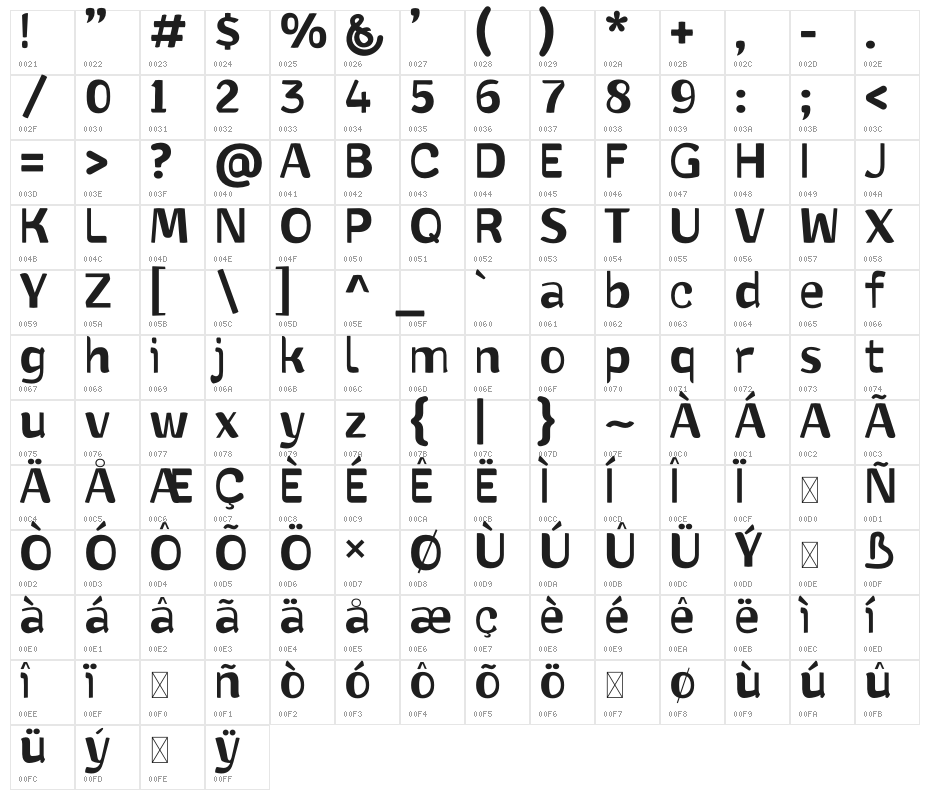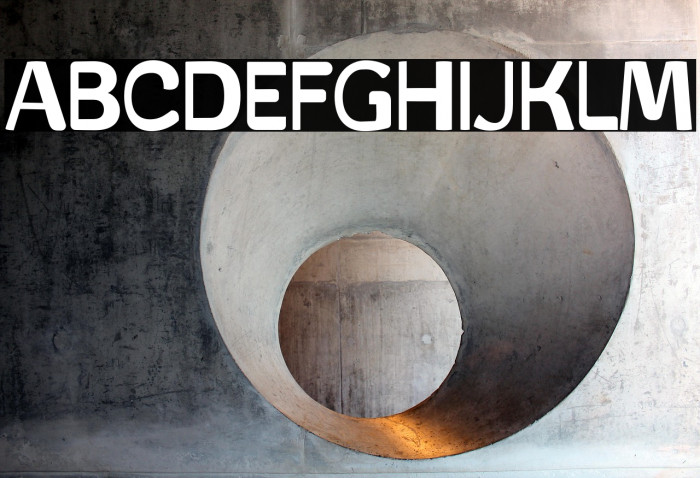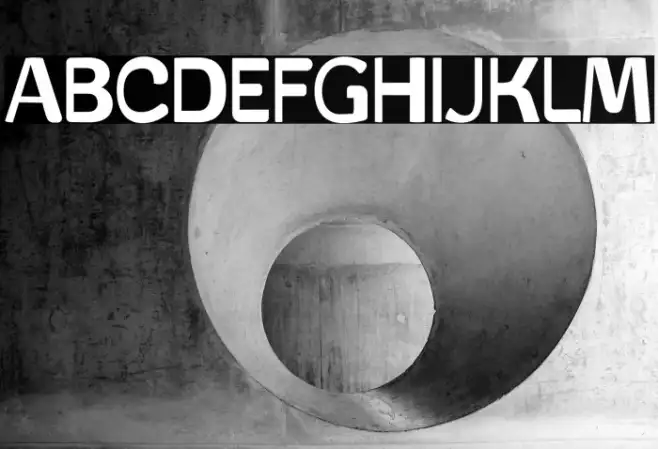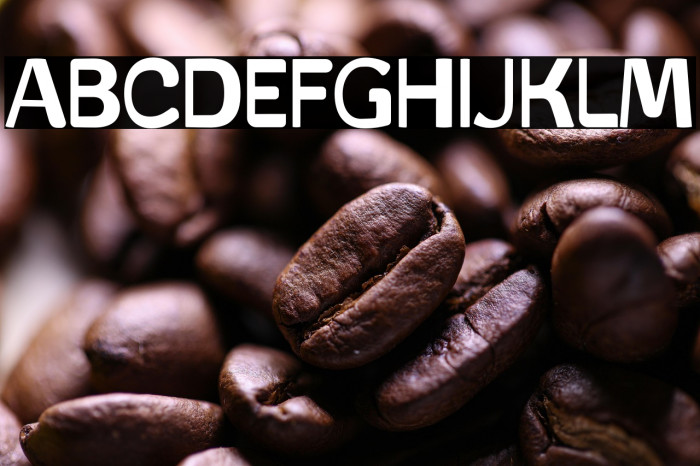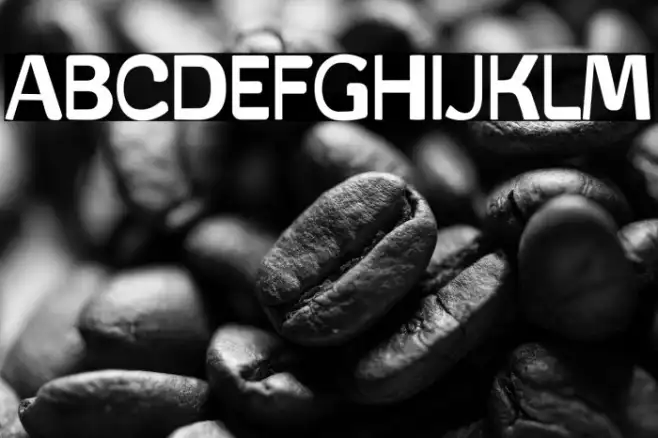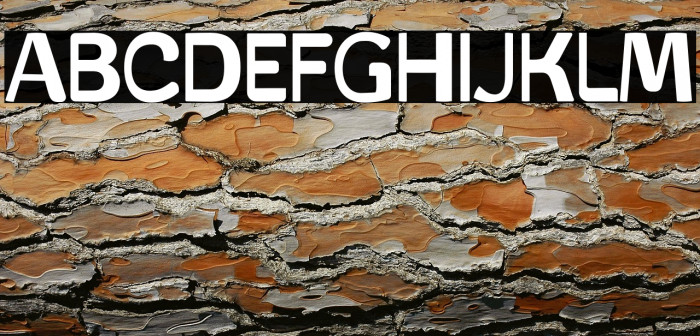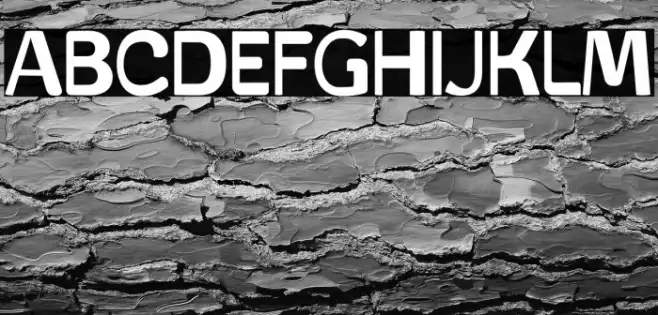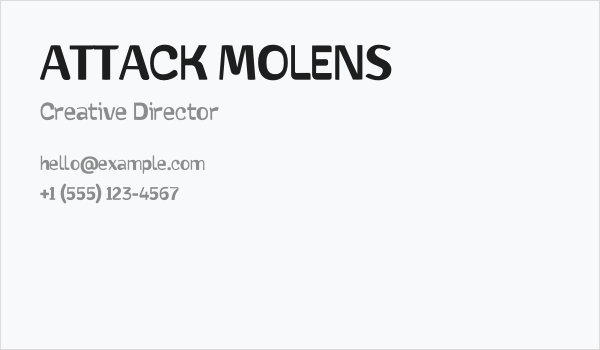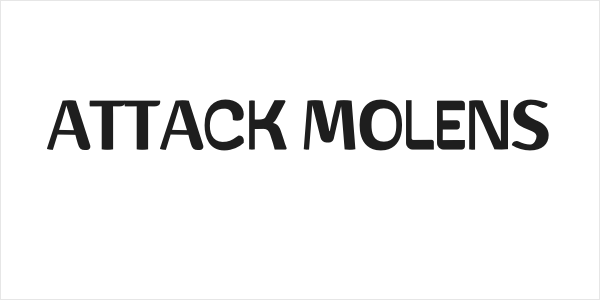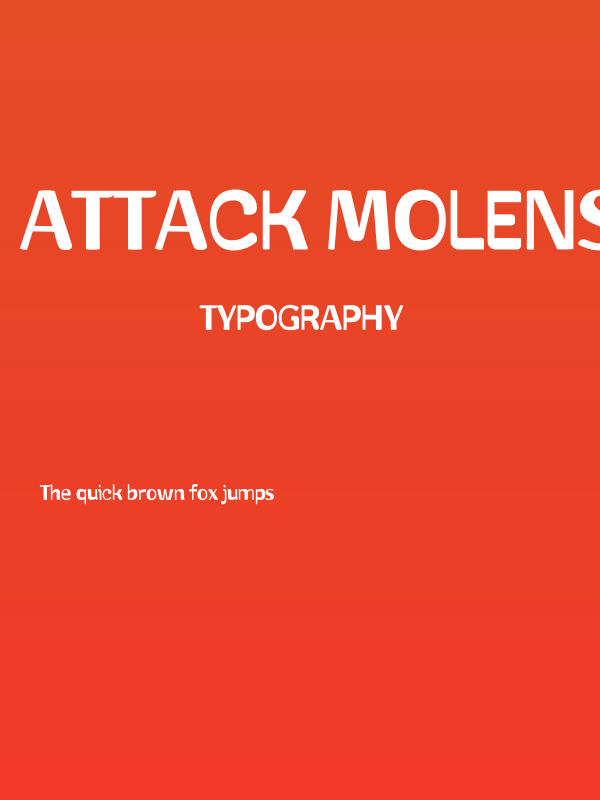
ATTACK MOLENS Font
ATTACK MOLENS Description
This font features a bold and modern design with a slightly rounded appearance, giving it a friendly and approachable feel. The uppercase letters are strong and assertive, while the lowercase letters maintain a consistent style that complements the overall look. The numerals are clear and easy to read, making them suitable for various applications. Special characters are well-integrated, ensuring versatility in usage. The font's design balances readability with a unique character, making it suitable for both digital and print media.